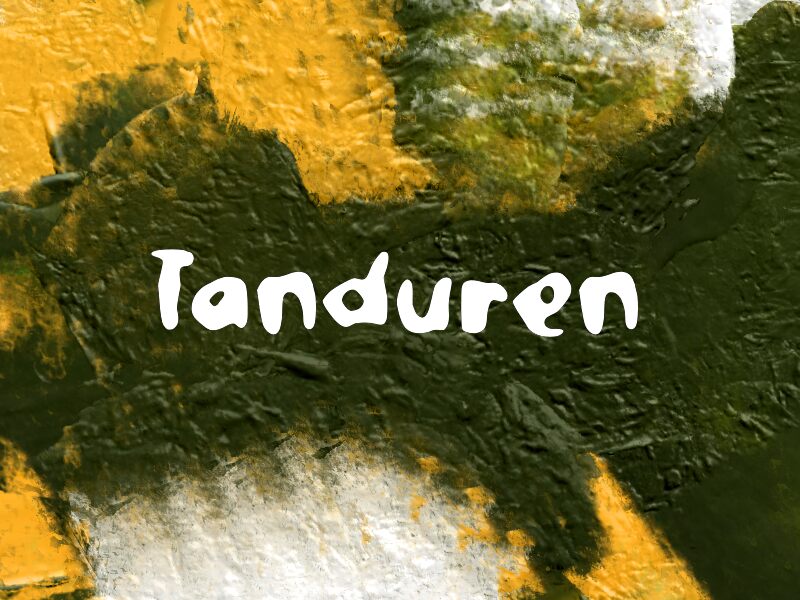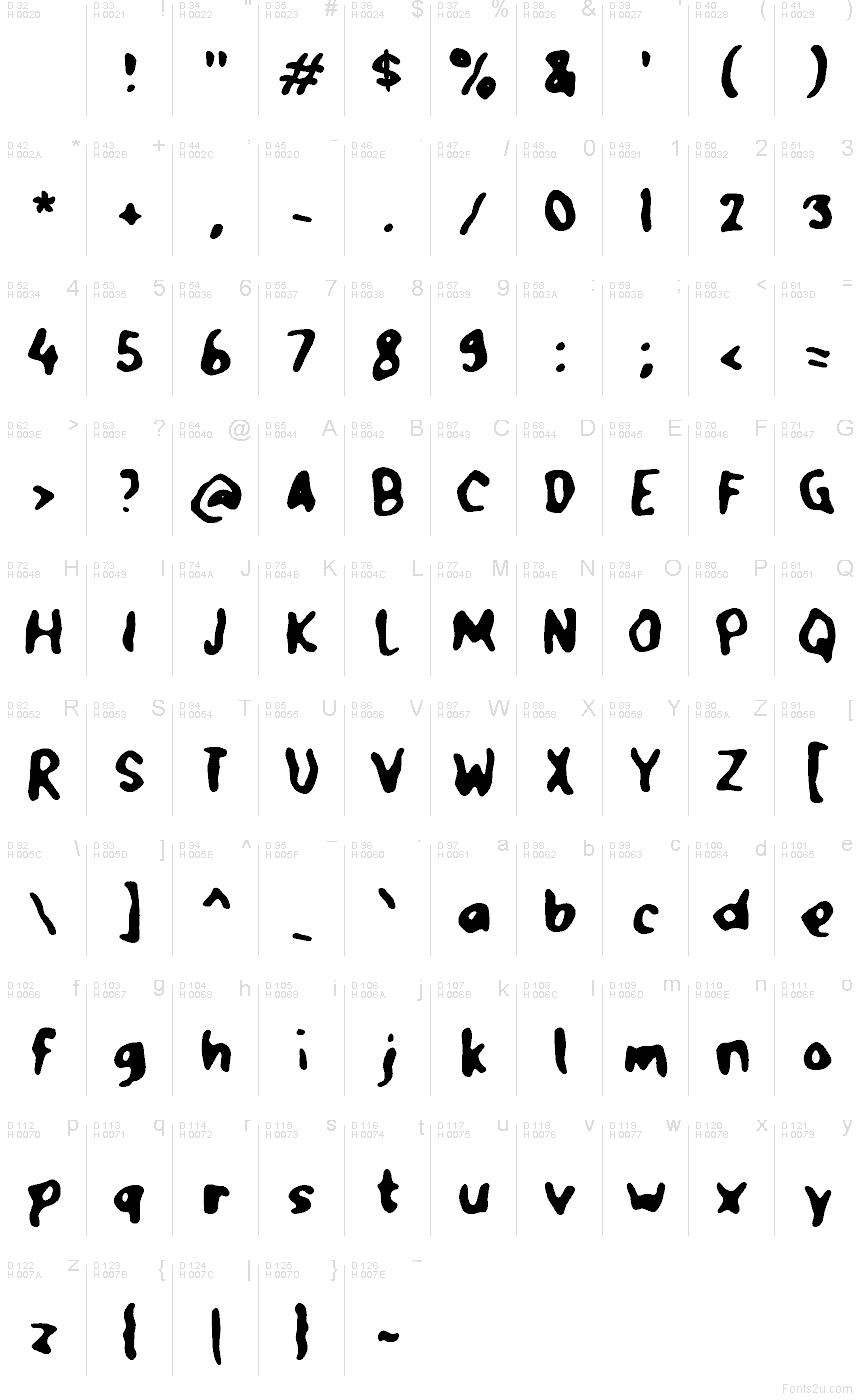
Tanduren by Wep is a free distorted display font with a soft, melted look that leans playful rather than chaotic. The letters feel puffed and uneven, with rounded, almost liquid shapes and a gentle wobble that gives the font a homemade psychedelic tone.
It fits posters, music artwork, sticker graphics, packaging, and social media headers where a short phrase can do the work. As a free font, Tanduren also suits title cards, cover lines, and logo sketches that need chunky, friendly letters with a slightly offbeat pulse.